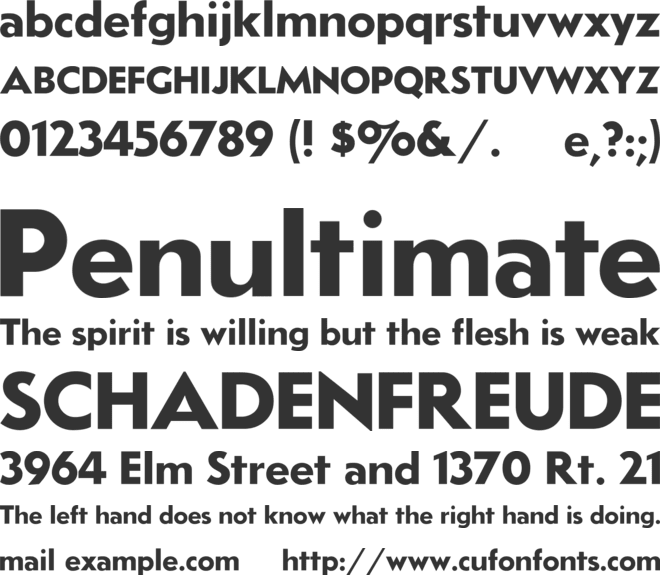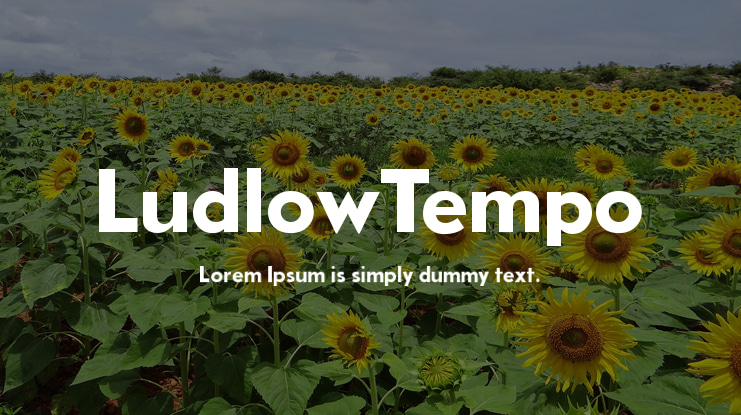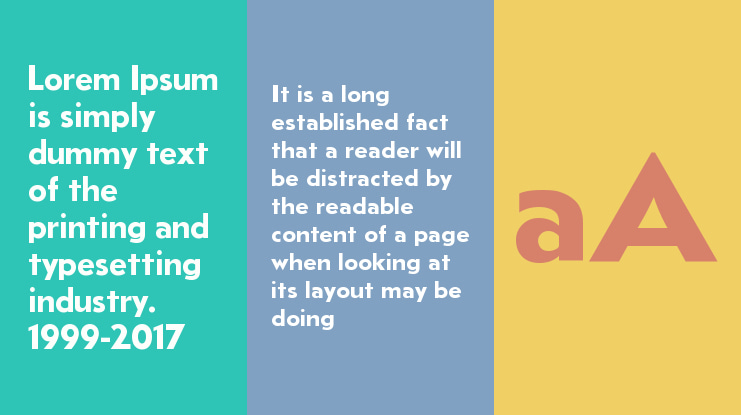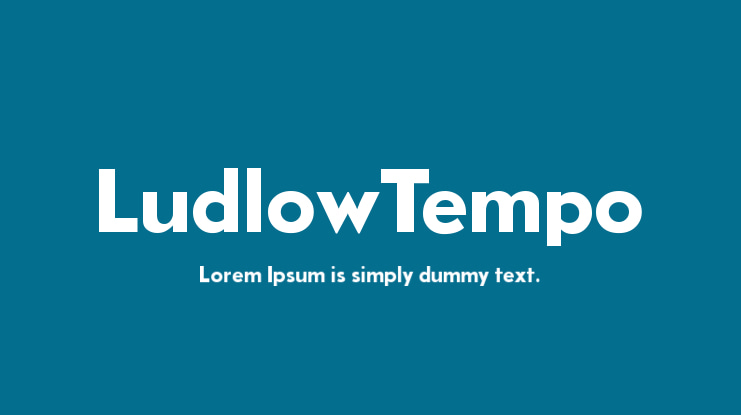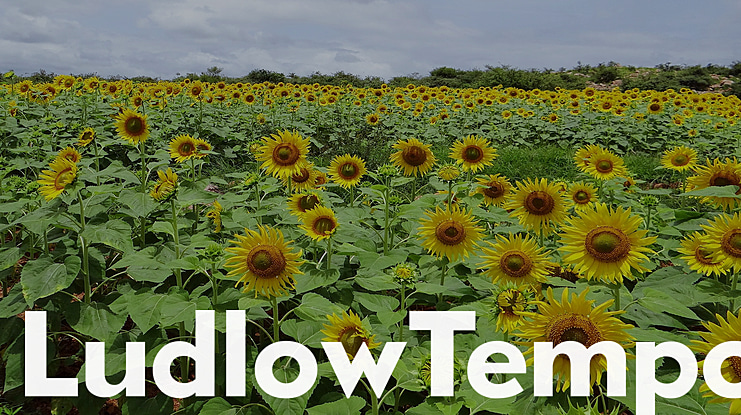
LudlowTempo Font
Digitized from Ludlow specimen books found at Archive.org. Features the original character lineup, with an R and a t that placed it in competition with Futura. For commercial use PayPal a donation to . Thanks!